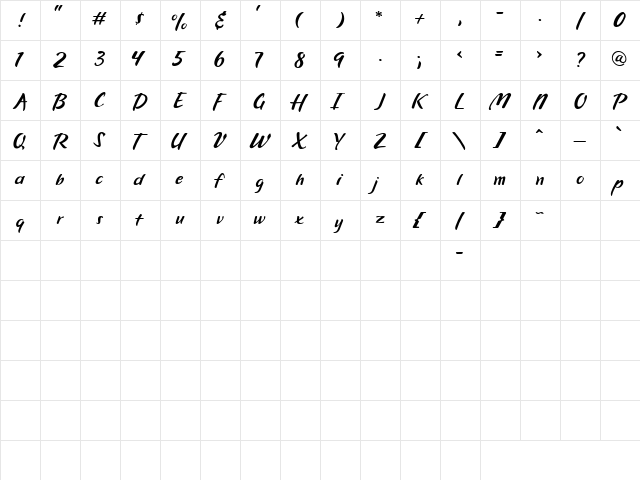
CK Thick Brush Regular
Design Context for CK Thick Brush Typeface
CK Thick Brush flows with the natural rhythm of handwritten lettering, making it ideal for designs that call for warmth and personal expression.
Font Pairing: Combine CK Thick Brush with a simple geometric sans for maximum contrast — the tension between flowing curves and clean structure is a classic typographic pairing.
Pro Tip: Pair CK Thick Brush with a clean sans-serif for supporting text. The contrast between fluid script and geometric structure creates an elegant typographic hierarchy.